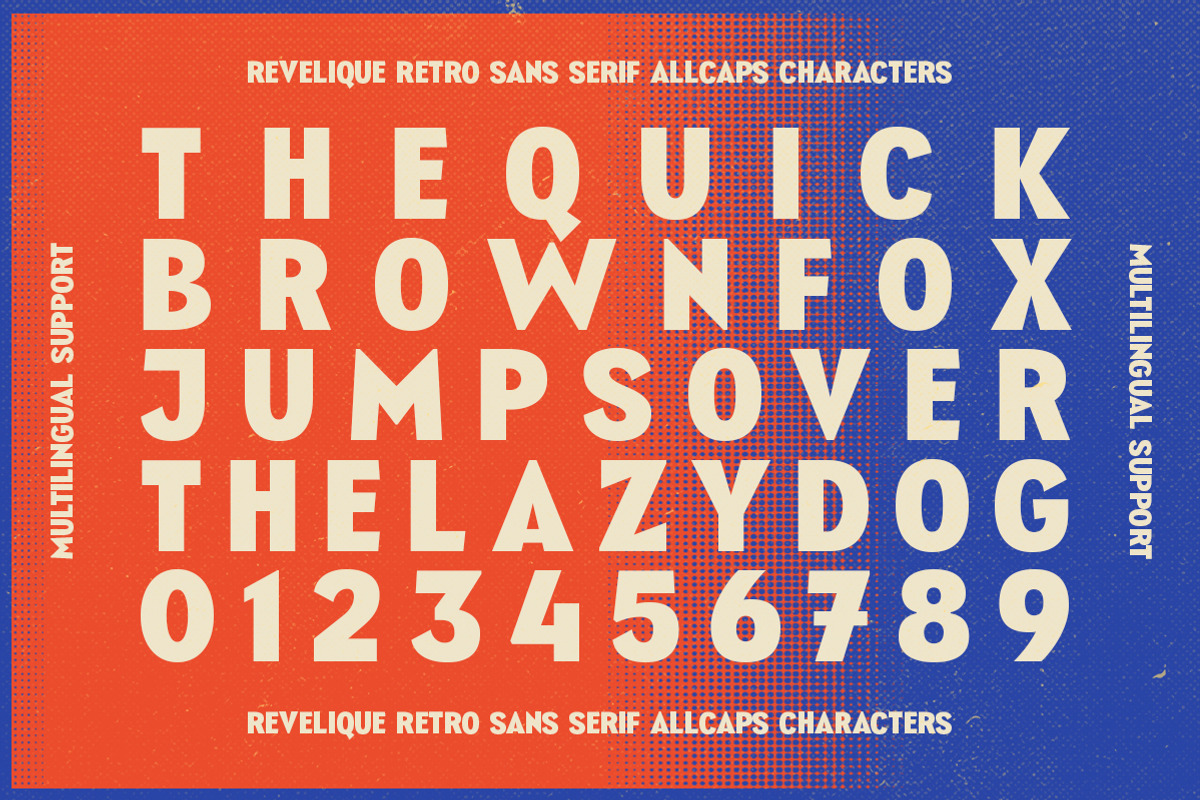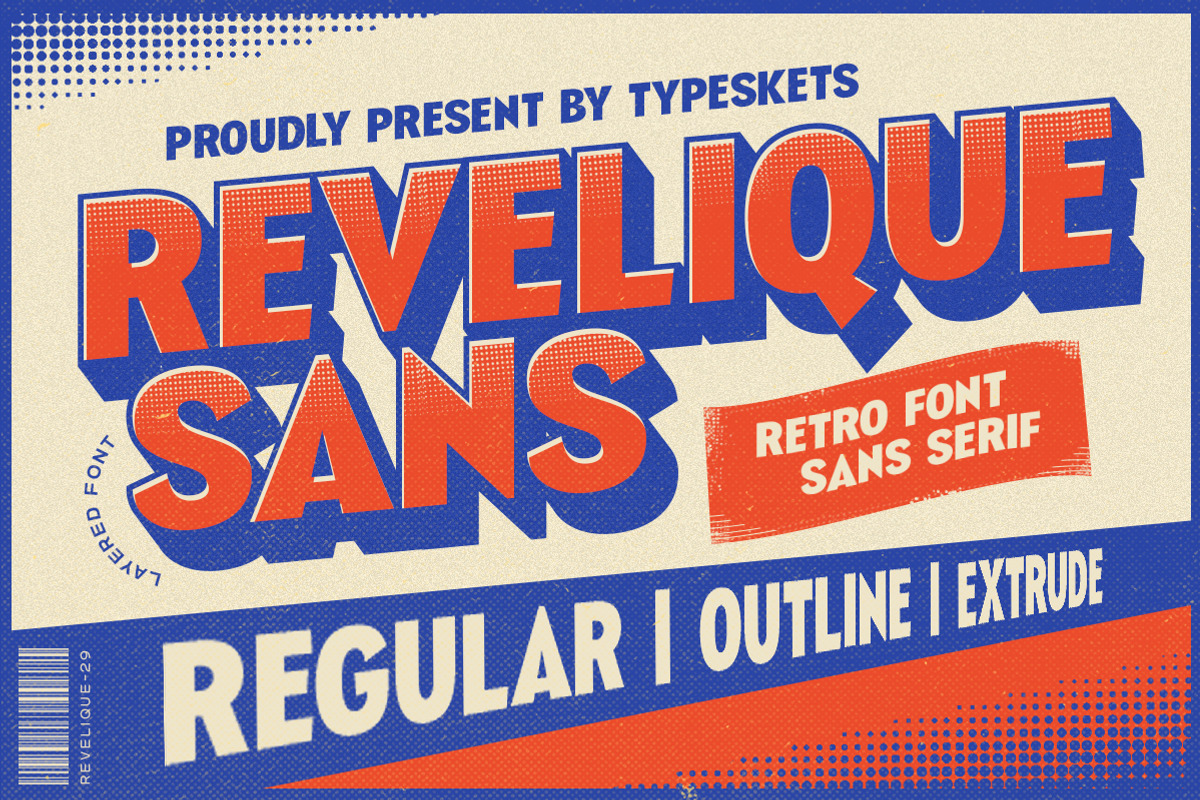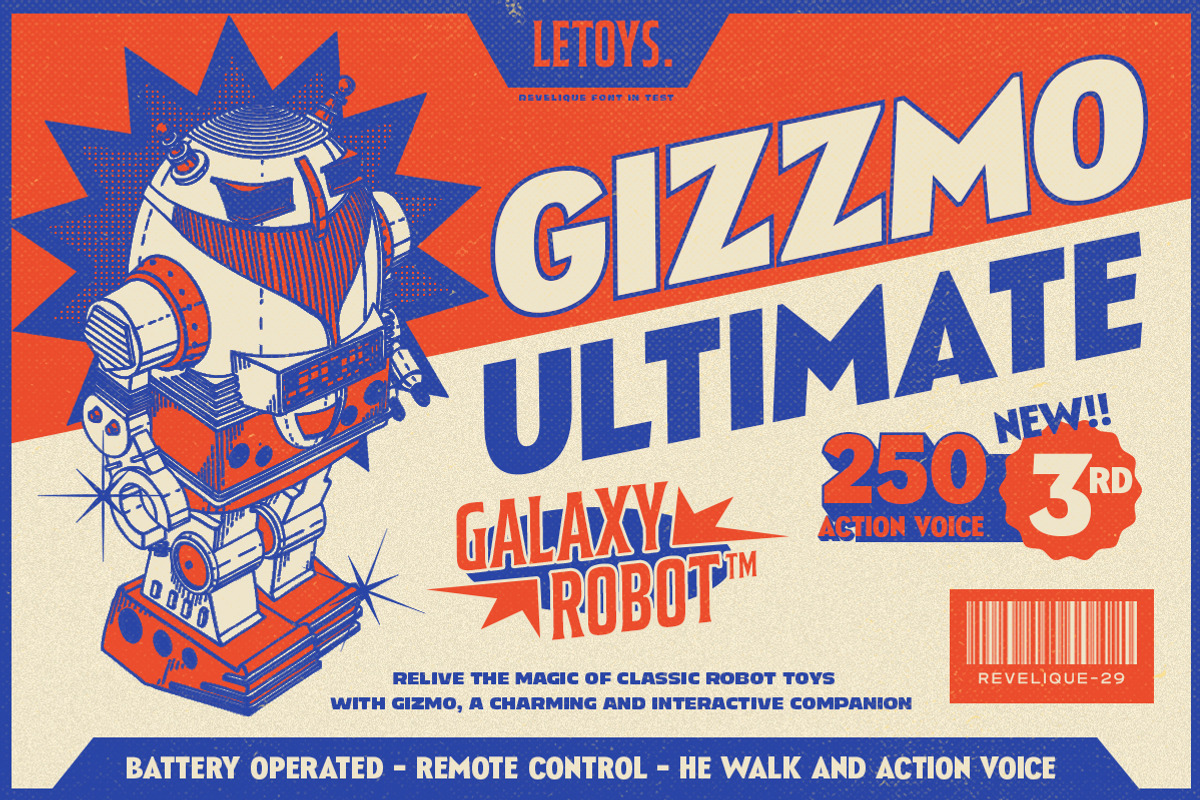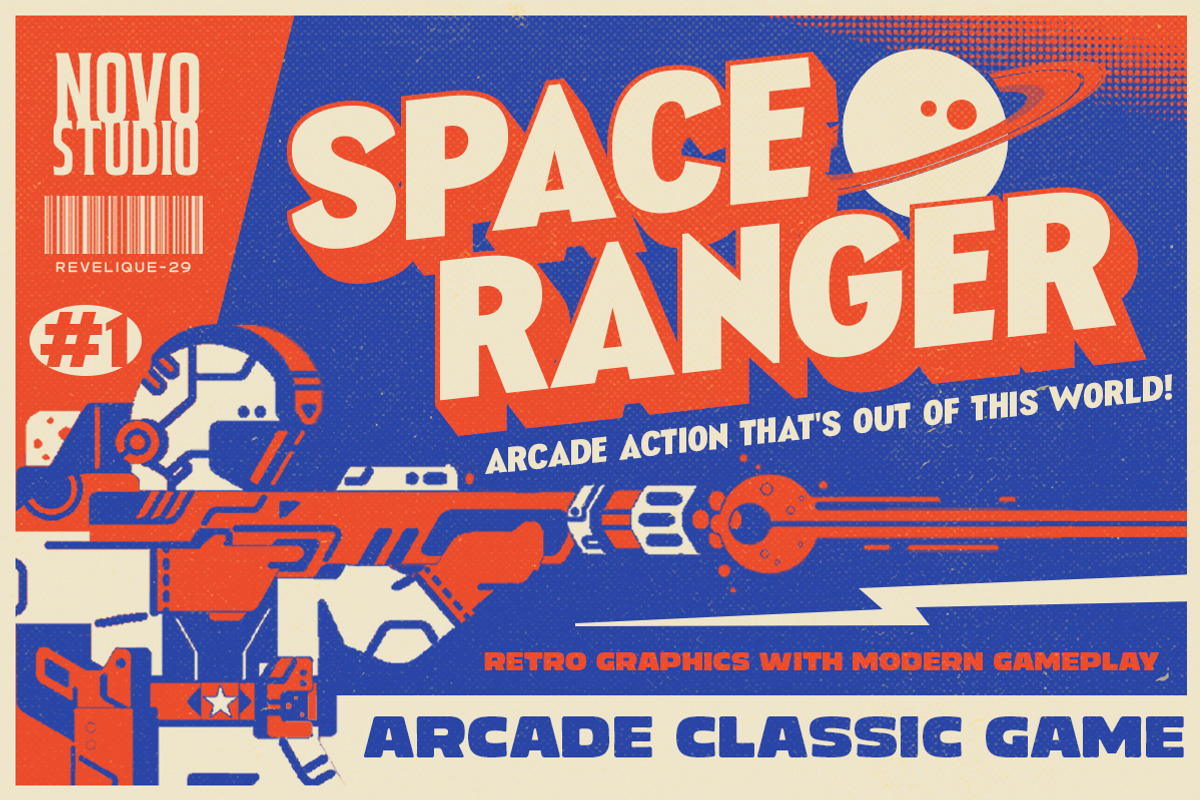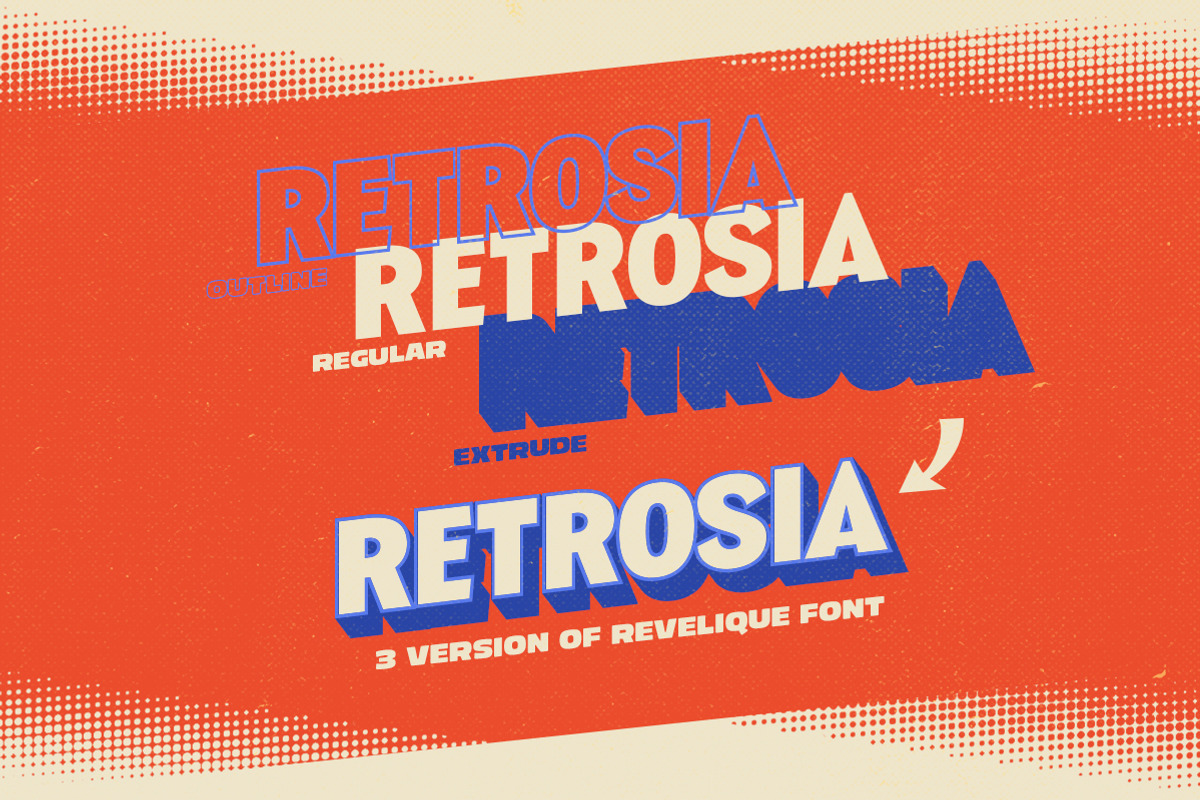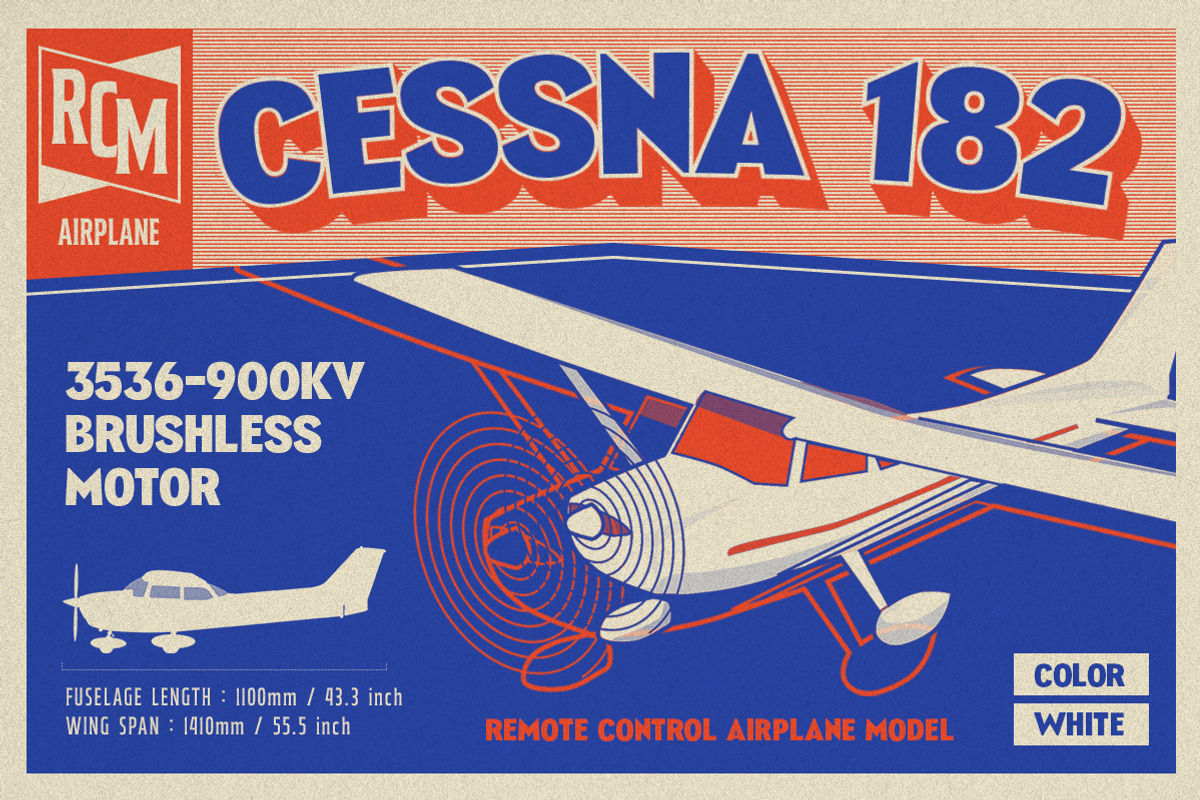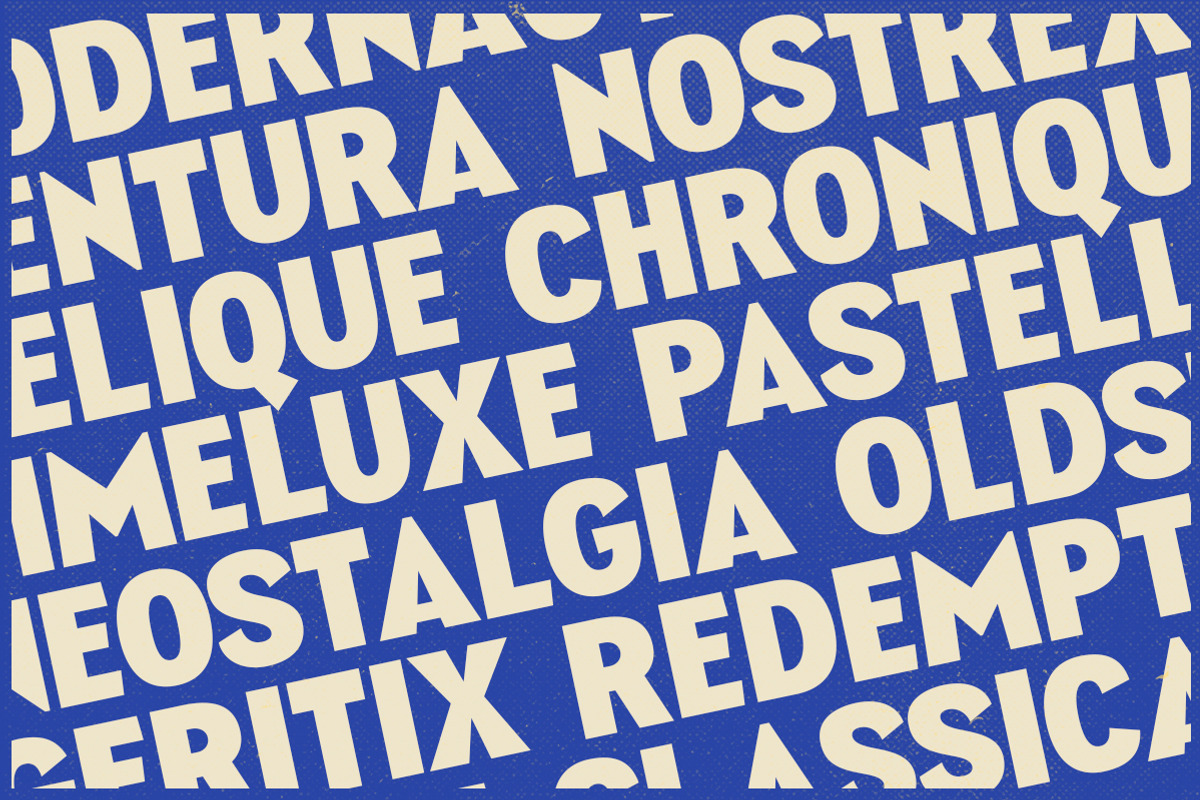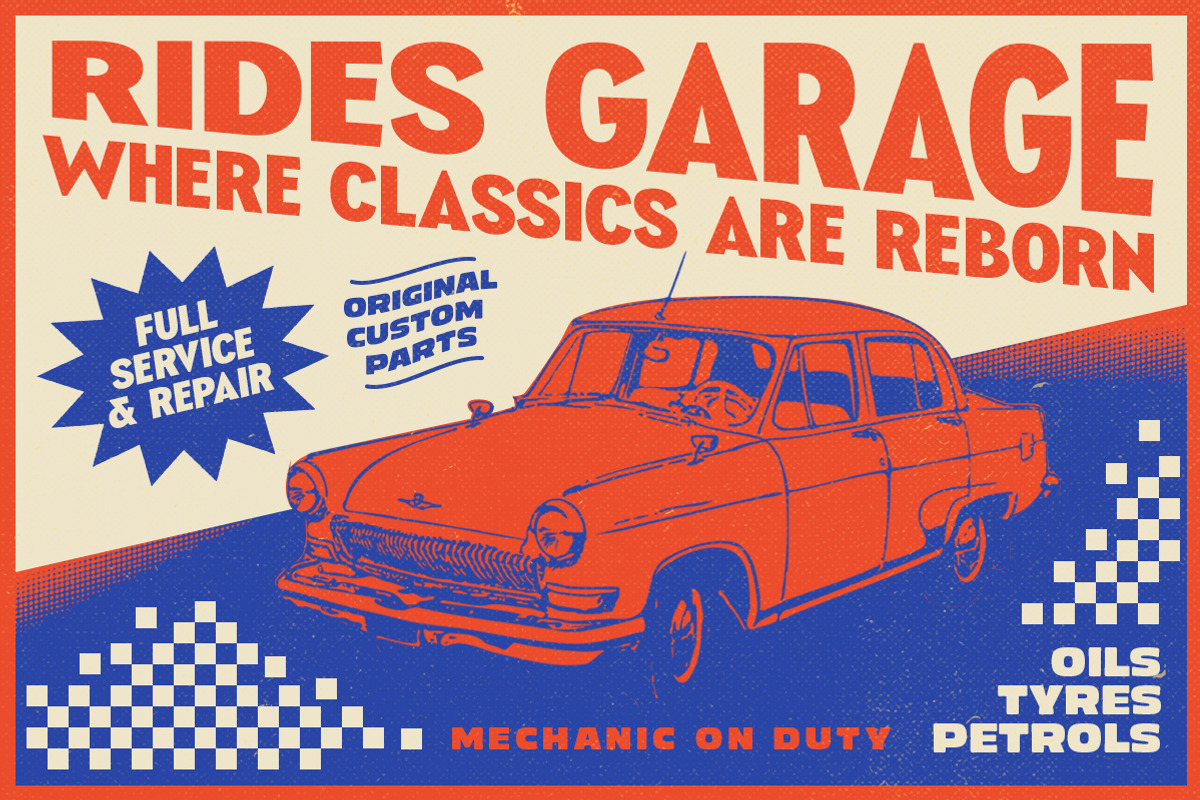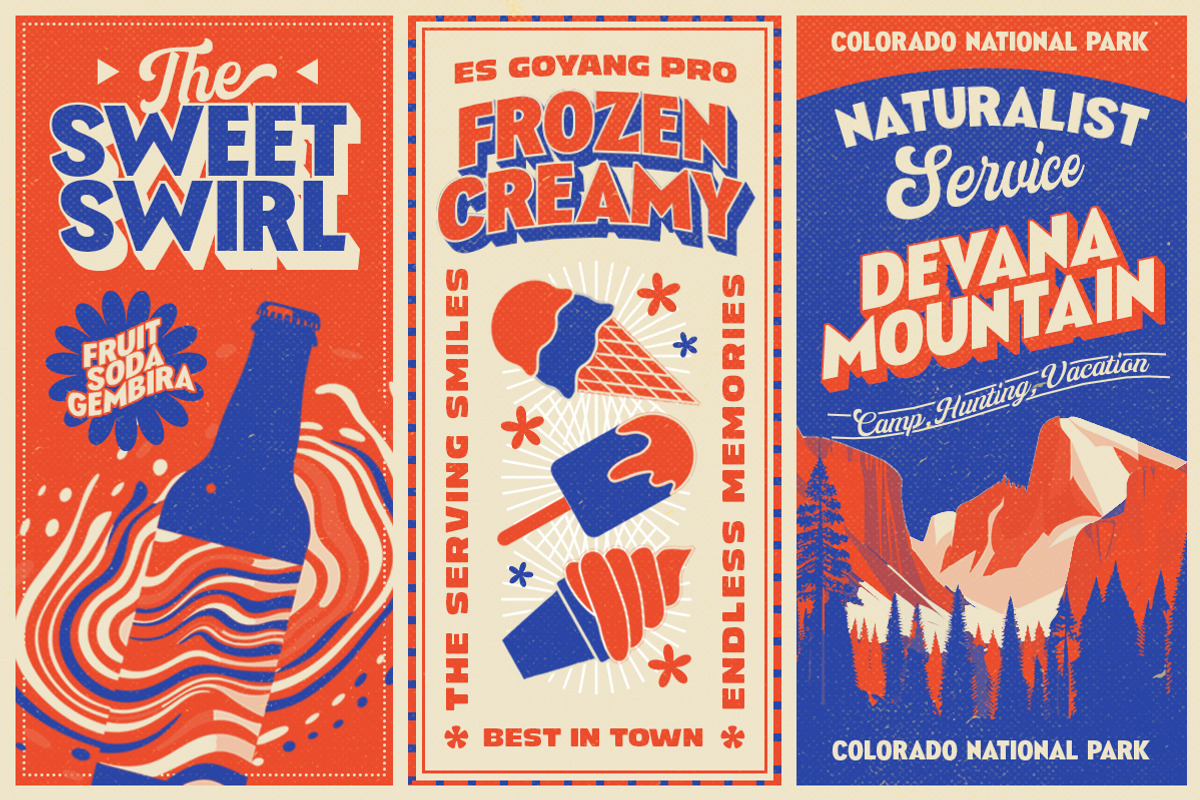
Revelique | Retro Sans Serif
Revelique is a bold and stylish retro sans serif font, designed to bring character and energy to your designs. Perfectly blending vintage aesthetics with a modern twist, Revelique is versatile and ideal for various creative projects such as posters, logos, headlines, packaging, and more.
This font family comes in three distinctive styles: Regular, Outline, and Extrude, giving you the flexibility to create layered, dynamic, and standout typography. With its timeless charm and playful retro vibe, Revelique is the perfect choice to make your designs unforgettable!